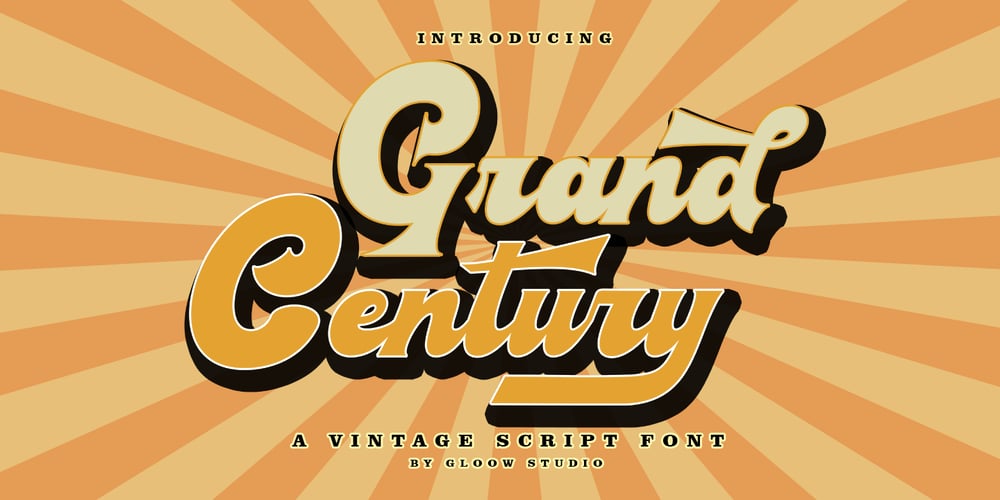
Grand Century Font Family was designed by Muhammad Iqram and published by Gloow Studio. Grand Century contains 1 styles and family package options. Introducing Grand Century. Retro styled font, comes with a clean and rustic version of the font. Grand Century is perfect for vintage and retro designs, badges, logos, t-shirts, posters, branding, packaging, signage, book covers and more!Comes with Opentype feature with lots of alternatives, it helps you to create great fonts. This font also supports multiple languages.To access alternative glyphs, you’ll need a program that supports OpenType features such as Adobe Illustrator CS, Adobe Photoshop CC, Adobe Indesign and Corel Draw.Supported by:UppercaseLowercaseAlternateNumbers, Punctuation and SymbolsMultilingual Support.If you have any questions, feedback or comments, feel free to send me a message. Happy Creative! Thank You!